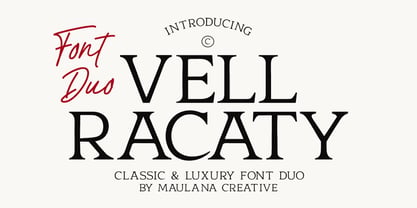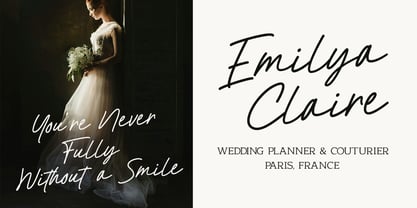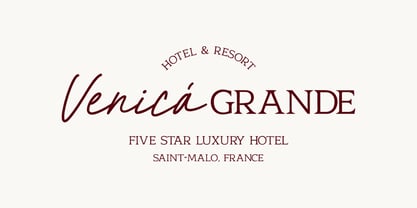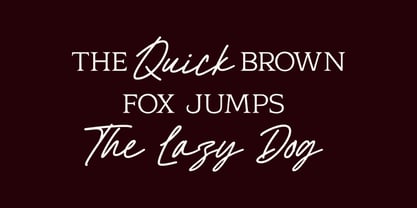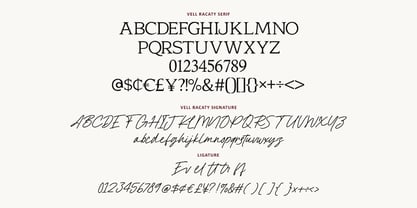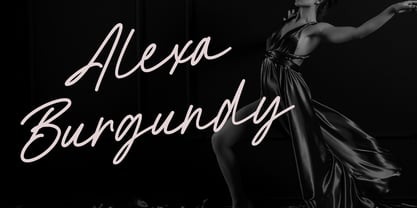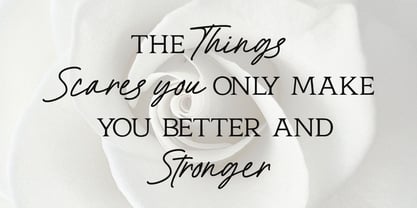
MC Vell Racaty Signature
by Maulana Creative
The MC Vell Racaty Signature Font Family was designed by Gilang Maulana and published by Maulana Creative. MC Vell Racaty Signature contains 2 styles and family package options. More about this family
Vell Racaty is a sophisticated font duo that masterfully blends a timeless, high-contrast Serif with a modern, hand-drawn Signature script. This pairing is designed to evoke an aura of elegance and high-end fashion. The serif typeface offers a clean, regal look for headlines, organic touch that mimics natural handwriting. Perfect for luxury branding, wedding invitations, high-fashion editorials, logos, and boutique social media content, Vell Racaty provides a balanced aesthetic of professional authority and artistic flair. Whether you are designing for a five-star hotel or a personalized fashion label, this duo ensures your typography remains both readable and remarkably stylish.
Designers: Gilang Maulana
Foundry: Maulana Creative